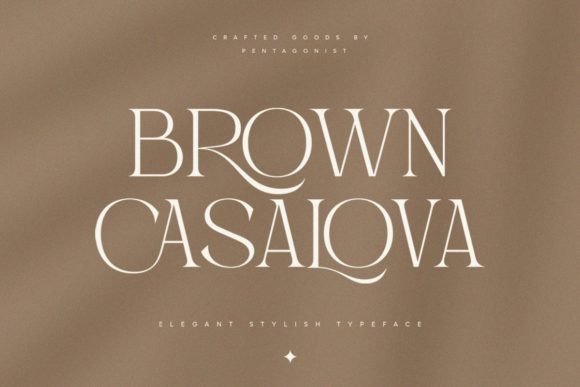
Unleash the power of Brown Casalova, a captivating serif font that will elevate your designs to new heights. Experience the allure of its refined strokes and elegant curves, meticulously crafted to create a timeless aesthetic.
Brown Casalova is the epitome of sophistication, exuding an air of luxury and grace. Its distinctive serifs add a touch of classic charm, while its modern sensibility ensures it remains relevant and striking. With Brown Casalova, you'll have the perfect font to create logos that demand attention, branding that exudes professionalism, and quotes that resonate with timeless elegance.
But Brown Casalova is more than just a pretty face. Its versatility extends far beyond logos and branding. It's the perfect choice for crafting eye-catching invitations, wedding stationery, and social media graphics. Whether you're a seasoned designer or just starting out, Brown Casalova will effortlessly elevate your creative projects.
Immerse yourself in a world of creativity with Brown Casalova. Its PUA encoding grants you access to a treasure trove of glyphs and ligatures, empowering you to add intricate details and stunning flourishes to your designs. Unleash your imagination and create breathtaking compositions that leave a lasting impression.
Brown Casalova is your gateway to a world of elegance, sophistication, and creativity. Its versatility and timeless beauty make it the perfect choice for designers of all levels. Embrace the power of Brown Casalova and transform your designs into masterpieces.